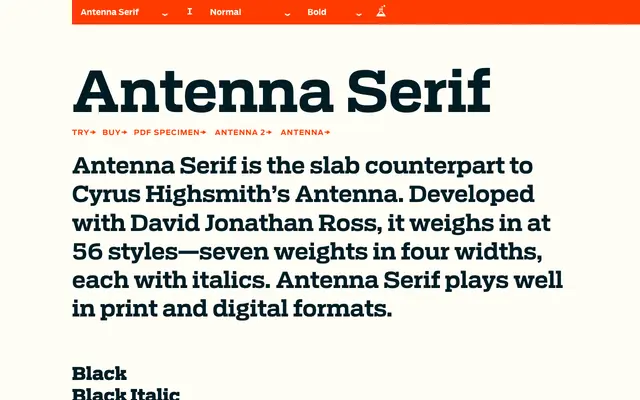
Antenna Serif
Occupant Fonts · Cyrus Highsmith, David Jonathan Ross · 2015
A 56-style slab companion to Cyrus Highsmith's Antenna, spanning seven weights across four widths with matching italics throughout.
Developed by Cyrus Highsmith with David Jonathan Ross, Antenna Serif extends the Antenna family into slab territory across Regular, Condensed, Extra Condensed and Compressed widths. Seven weights from Thin to Black run through each width, all with italics, giving designers 56 styles to work across print and digital formats. The consistency of structure across widths makes it a practical choice for publications and systems that need expressive range within a single family.
Antenna Serif is explicitly described as the slab counterpart to the sans-serif Antenna, with bracketed serifs applied to a design otherwise sharing Antenna's proportional and structural logic across four widths.